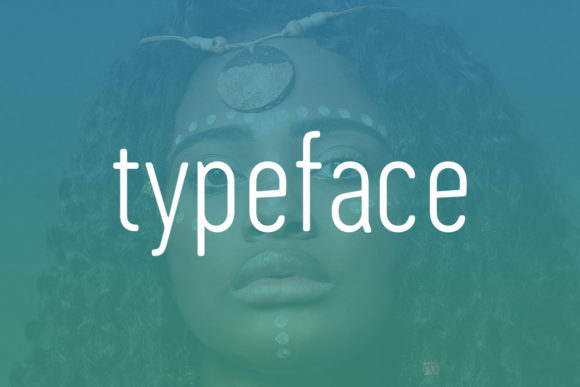
The Aspire Font: A Modern Sans Serif for Your Design Needs
An Honest Review of Aspire Font
- ✅ Simple yet sophisticated: Aspire strikes the perfect balance between modernity and elegance.
- ✨ Versatile: This font adapts seamlessly to a wide range of designs, from minimalist branding to more elaborate projects.
- 🔍 Highly legible: Even at smaller sizes, Aspire remains clear and easy to read.
- 🎨 OpenType features: Aspire supports a range of OpenType features, including stylistic alternates and glyphs, giving you plenty of creative freedom.
While Aspire is an excellent font, there are a few things to keep in mind: 🤔
- ⚠️ Limited character set: Aspire might not have every special character or glyph you need, so be sure to check the font specs before committing to a project.
- 😐 Not ideal for body text: While legible, Aspire shines brightest as a display or headline font; for longer texts, you might want to pair it with a more traditional serif font.
The Story Behind Aspire Font
The Aspire font was crafted with the modern designer in mind. Its creator aimed to produce a clean, versatile typeface that could effortlessly adapt to various design needs. Inspired by the geometric simplicity of urban landscapes and the elegance of digital interfaces, Aspire was born as a tool for creatives seeking a reliable, stylish font.
Q: What makes Aspire font stand out?
A: Aspire’s simplicity, modernity, and versatility make it an excellent choice for a wide range of design projects.
Q: How does Aspire perform in digital media?
A: Aspire is highly legible on digital screens, making it perfect for website headers, mobile app designs, and more.
Q: Can Aspire be used for print projects?
A: Absolutely! Aspire’s clarity and elegance make it an excellent choice for print materials like brochures, posters, and business cards.